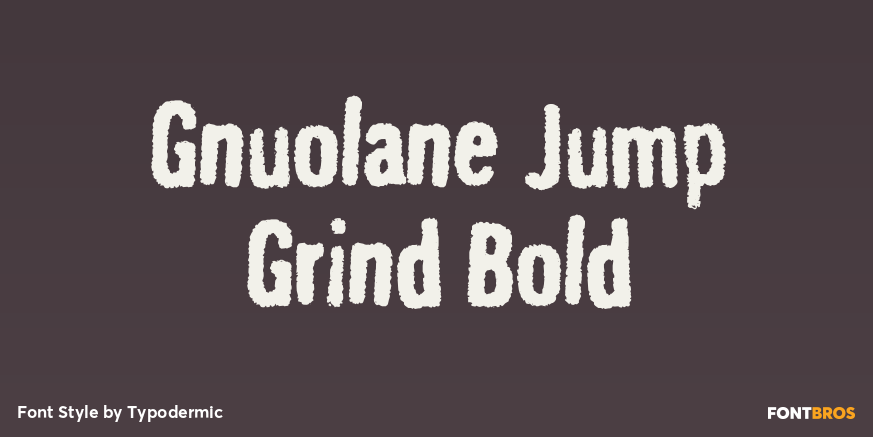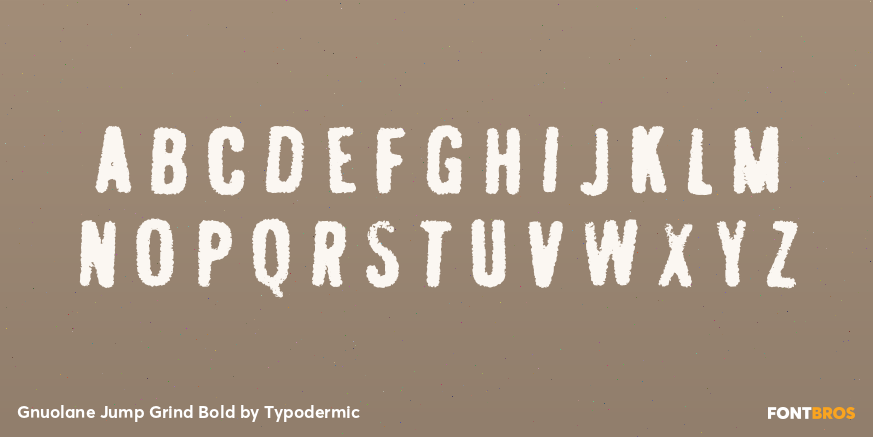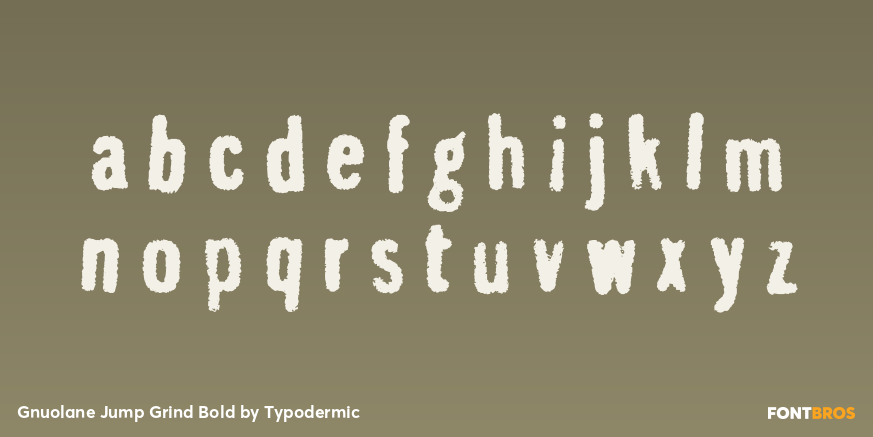
Gnuolane Jump Grind Bold
Buy NowGnuolane Jump Grind Bold keeps the condensed, superelliptical structure and automatic raised-and-lowered substitutions of ordinary Gnuolane Jump Bold, then breaks its heavy strokes and edges with a dense chipped texture. The distressed surface is built into the glyph outlines, so replacement words retain the family’s changing vertical rhythm without a separate texture pass. Compared with Grind Reg, the broader strokes give the damage more area to register and make this the stronger treatment for short, forceful titles.
Use Grind Bold for festival headliners, live-music posters, comedy-night titles, stage names, record-release campaigns, snack-flavor fronts, and merchandise graphics where roughness must remain visible at a glance. It offers the character of a distressed bouncy display font while staying connected to the clean Gnuolane Jump family. Pair it with clean Jump styles for dates, schedules, ingredients, and supporting information.